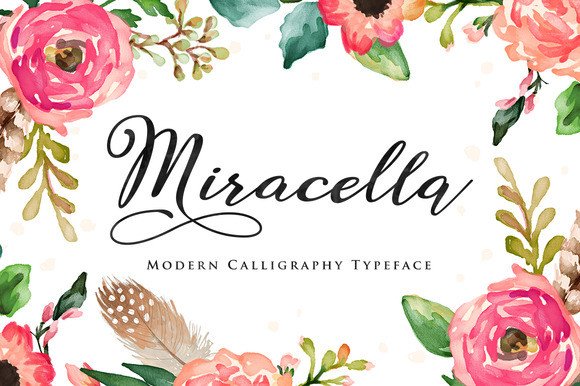
Introducing Miracella Font, the enchanting script font that will captivate your designs with its timeless allure.
Crafted by the renowned Ian Mikraz, Miracella gracefully dances across the page, infusing your creations with a touch of elegance and charm. Its meticulously crafted curves and delicate flourishes evoke a sense of nostalgia, making it the perfect choice for projects that demand a refined and sophisticated touch.
Whether you're crafting elegant wedding invitations, eye-catching logos, or captivating posters, Miracella's versatility knows no bounds. Its classic script style adds a timeless quality to your designs, ensuring they stand out from the ordinary.
Embrace the beauty of hand-lettering with Miracella Font. Let its captivating strokes ignite your creativity and transport your projects to new heights of sophistication. Indulge in the charm of its handwritten elegance, and experience the transformative power of Miracella Font.